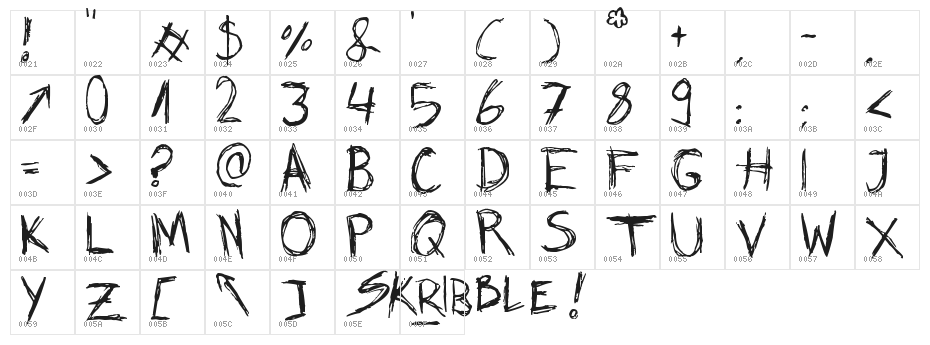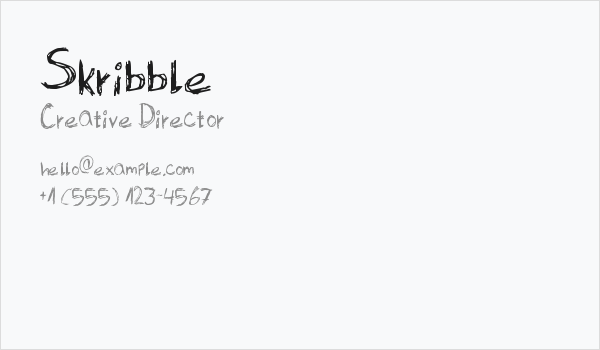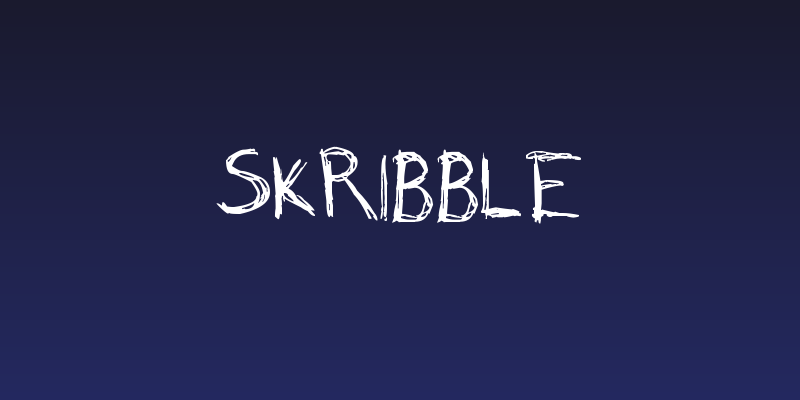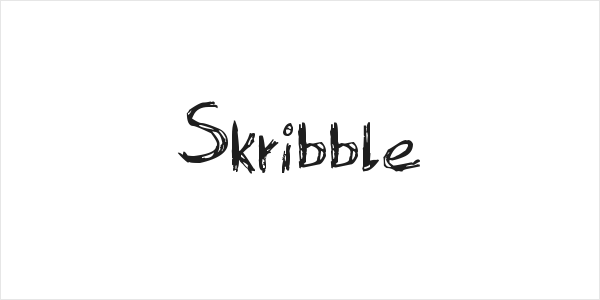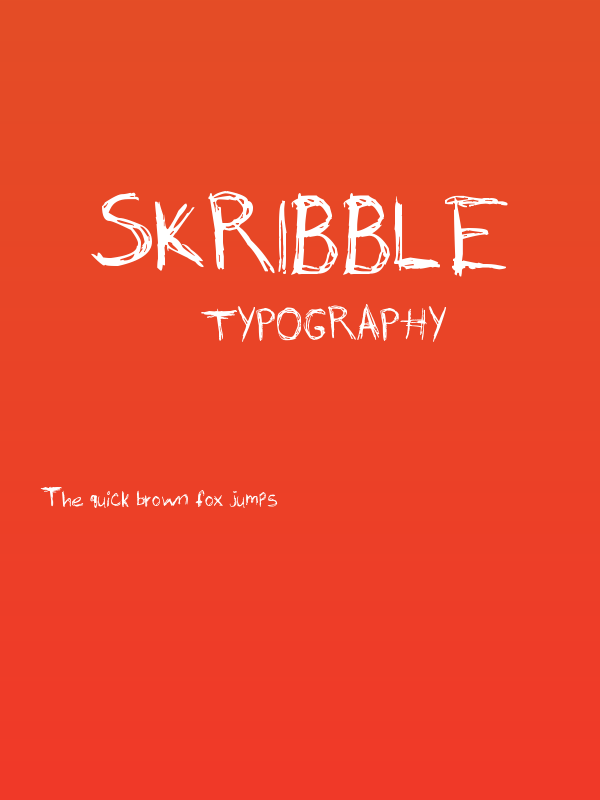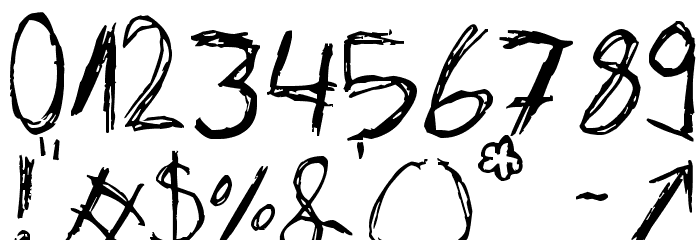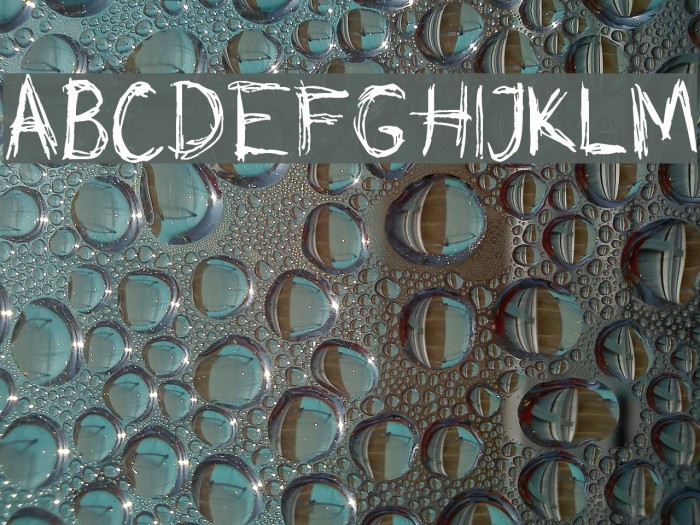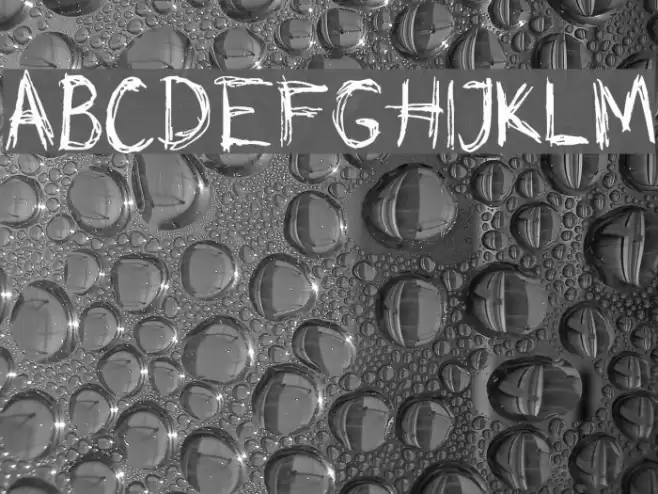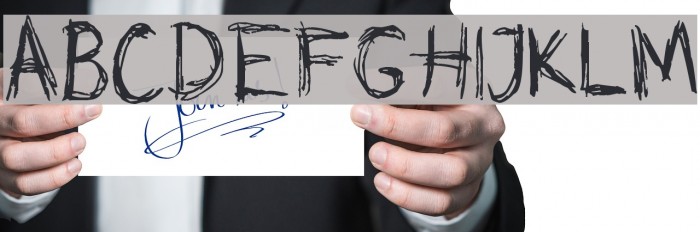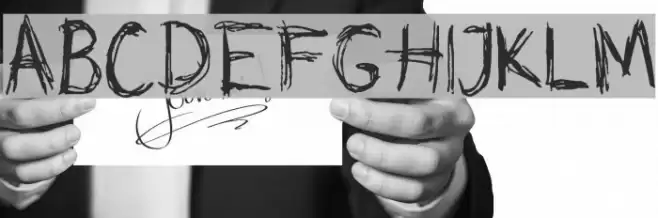
Skribble Font
Skribble Description
This font features a playful, hand-drawn style that mimics the look of casual, spontaneous scribbles. Each character is unique, with varying stroke thicknesses and irregular shapes, giving it a dynamic and energetic appearance. The letters are slightly tilted and uneven, adding to the informal and whimsical feel. The font includes both uppercase and lowercase letters, numbers, and a variety of special characters, all maintaining the same sketchy aesthetic. Its distinctive style makes it stand out, perfect for projects that require a personal touch or a creative flair.
| Use Case | Headlines, Logos, Creative projects |
| Proposed Projects | Ideal for children's books, creative posters, casual invitations, and artistic branding. |